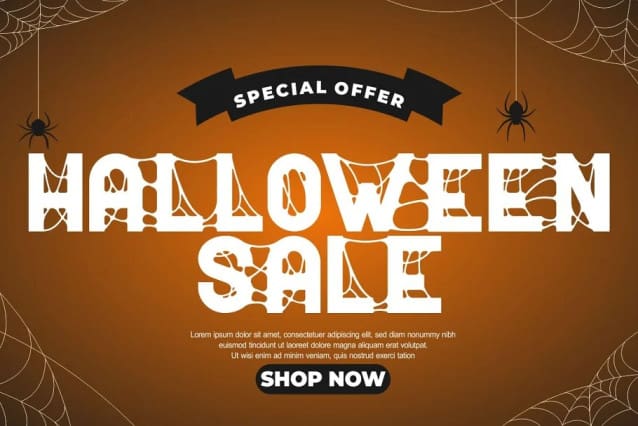
NetHunt Display Font
NetHunt Display Font, a spider display sans font that is perfect for any design that requires a horror or scary look. The font is inspired by an old embossed nameplate with cobwebs in it, and the designer made it into a display font. NetHunt features both uppercase and lowercase versions, with the lowercase version not having the cobweb design. The font also includes a sans ligature feature that makes the cobwebs of each word even cooler.
If you are looking for a font that will give your designs a spooky and eerie vibe, NetHunt is the perfect choice. Use it for logos, titles, logotypes, covers, headlines, apparel, comics, cover books, cards, posters, or anything else that requires a horror or scary look.
NetHunt Display comes with a variety of features that make it a versatile font. The font includes uppercase and lowercase letters, opentype alternates and ligatures, and multilingual support for a wide range of languages. The font also includes number, punctuation, and symbol glyphs.
If you want to add a spooky and horror touch to your designs, NetHunt Display is the font for you. It is perfect for Halloween designs, horror movie posters, or any design project that requires a unique and scary font. Use it for your next project and see the difference it makes!
In summary, NetHunt Display is a spider display sans font that is perfect for horror and scary designs. It is inspired by an old embossed nameplate with cobwebs and features both uppercase and lowercase versions. The font includes opentype alternates and ligatures, multilingual support, and number, punctuation, and symbol glyphs. Use NetHunt for your next design project and add a spooky and eerie vibe to your designs.